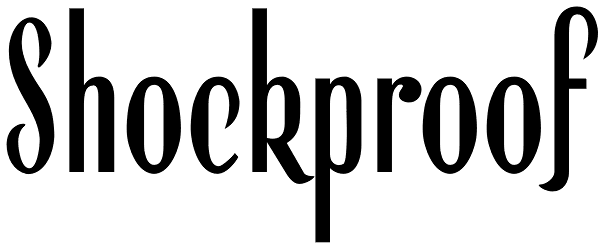
Shockproof
Shockproof takes its inspiration from 1940s hand lettering. It's a display font that mixes elegance with a touch of informality. Great for use in identity, signage, posters, and anywhere that tall, cool typographic drink would be refreshing.